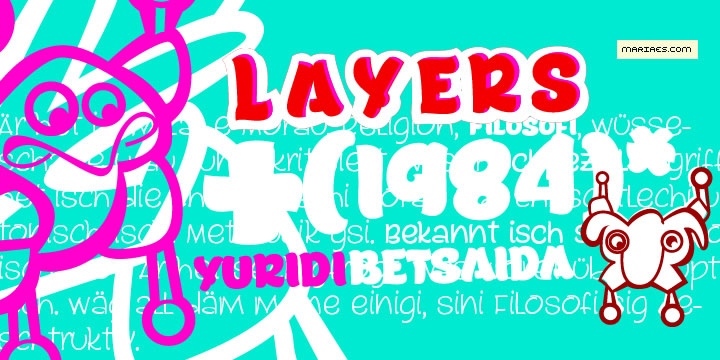
Lita was inspired by Maria Angelica Estrada’s manuscript lettering. Its sweet and feminine style improves when you put on top the A,B and C files, saving time and work when changing colors, changing look or changing the volume it needs.